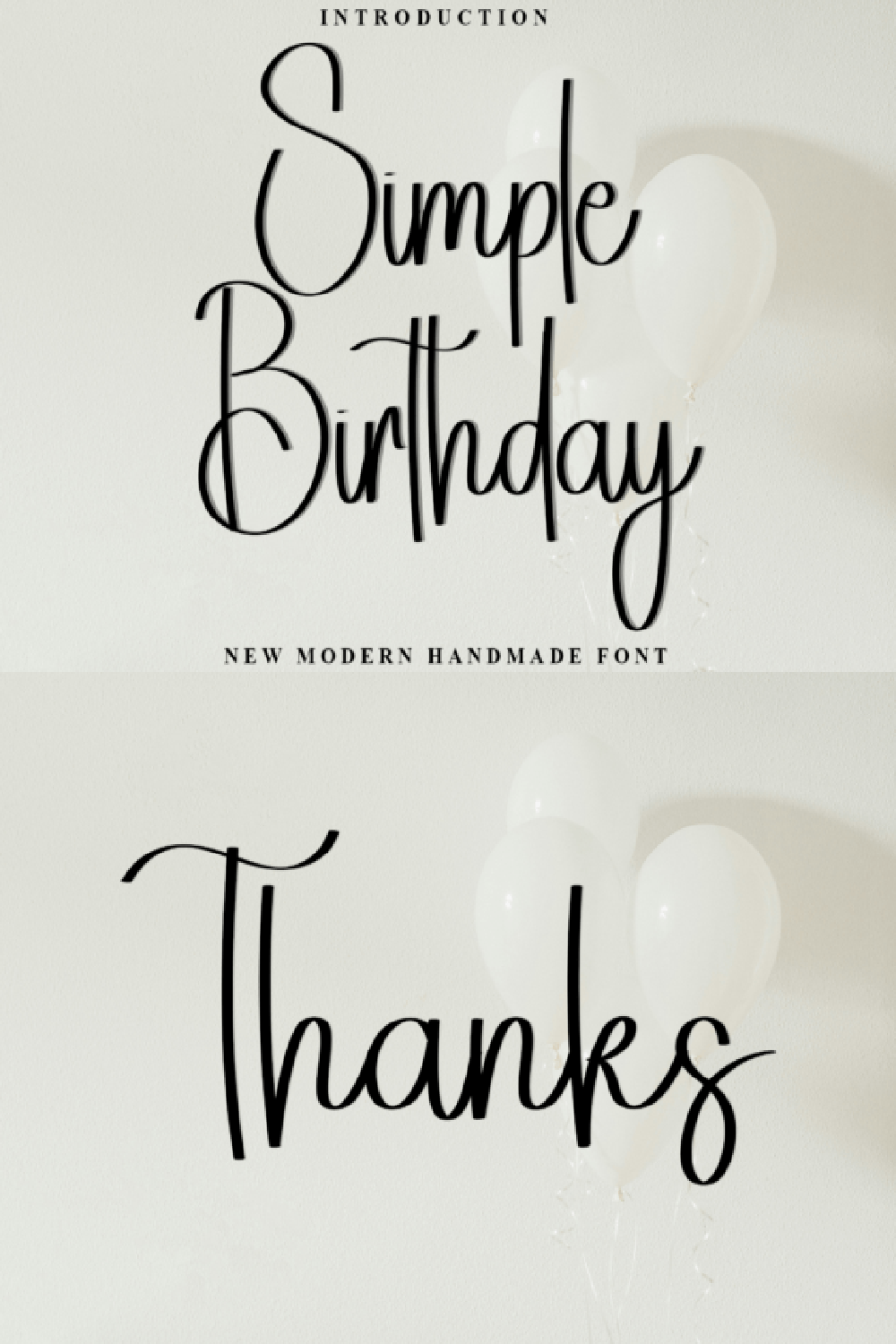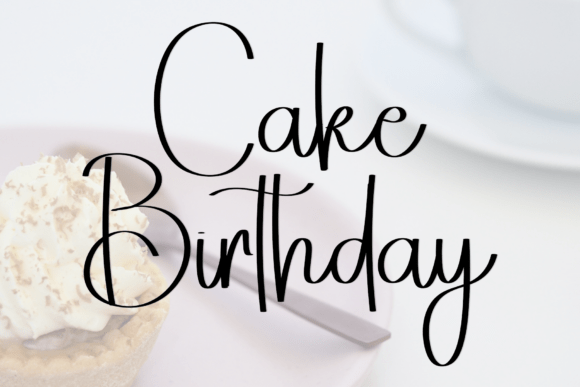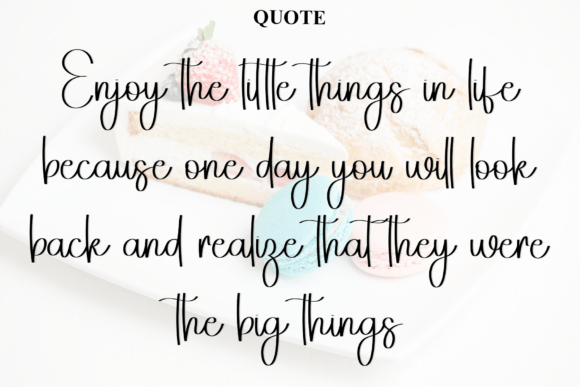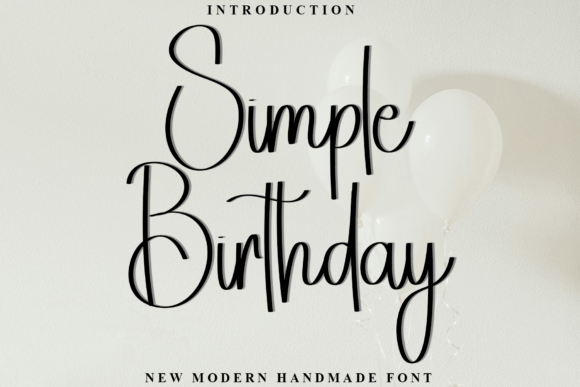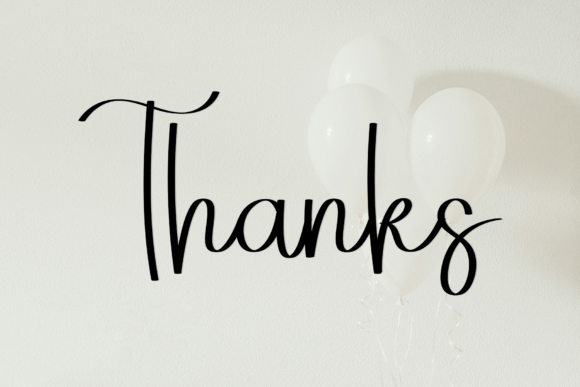
Simple Birthday Font
About the Simple Birthday Font
The Simple Birthday Font is here to transform your projects with its distinctive character and style. Simple Birthday is a beautiful and eye-catching font designed with a soft, unique touch. Its distinctive strokes give it a special character, making it meaningful and versatile for future use. With various characters, it’s perfect for design projects, crafts, and other creative works.